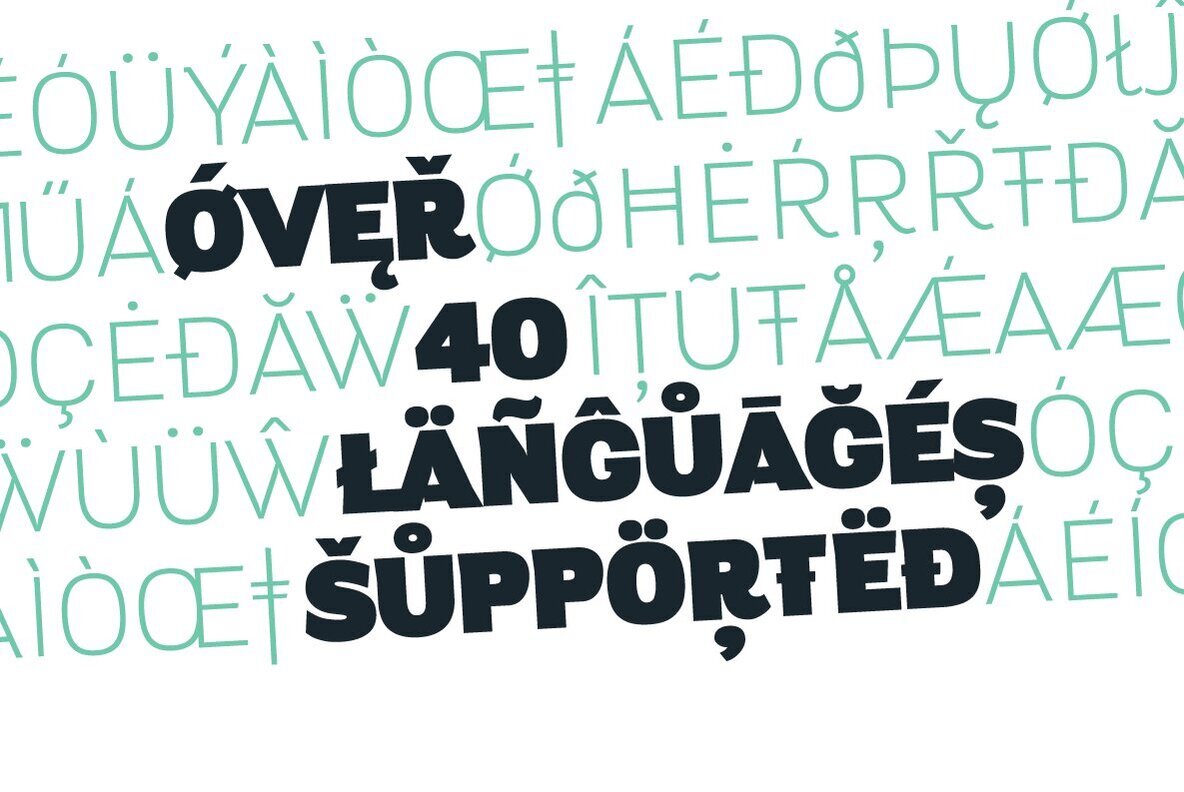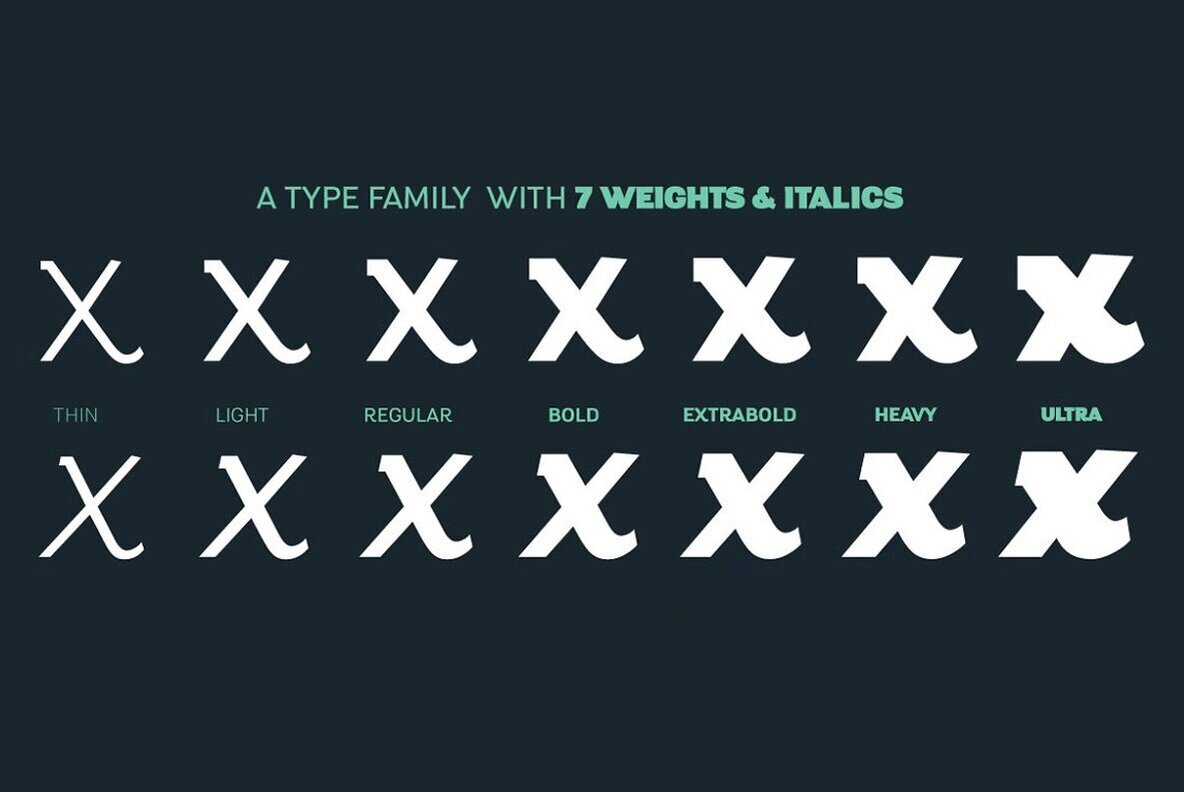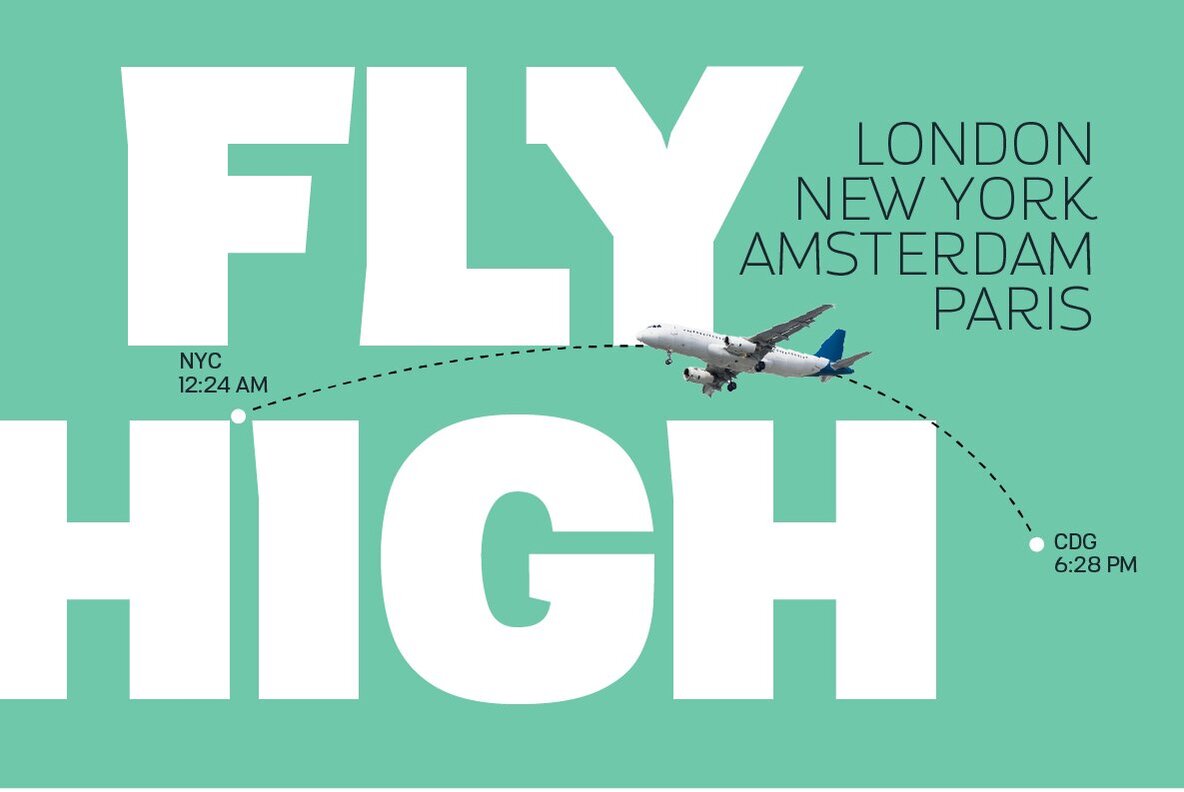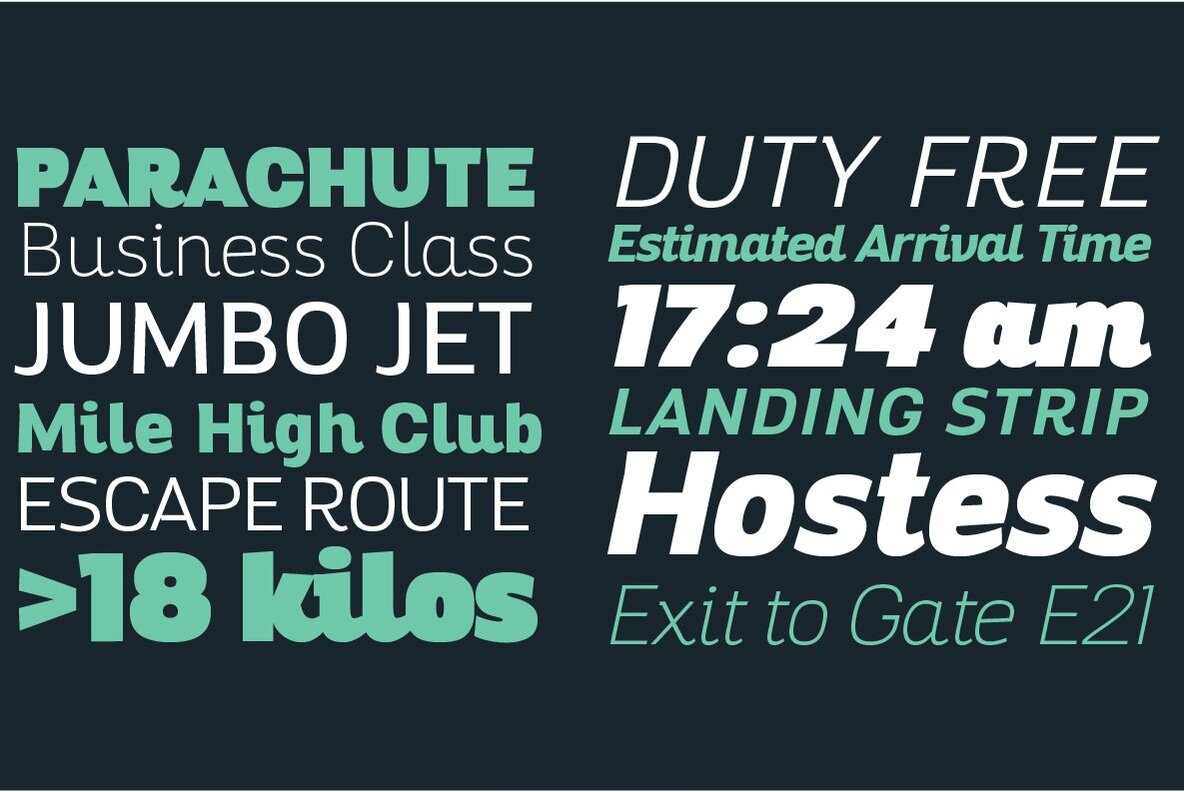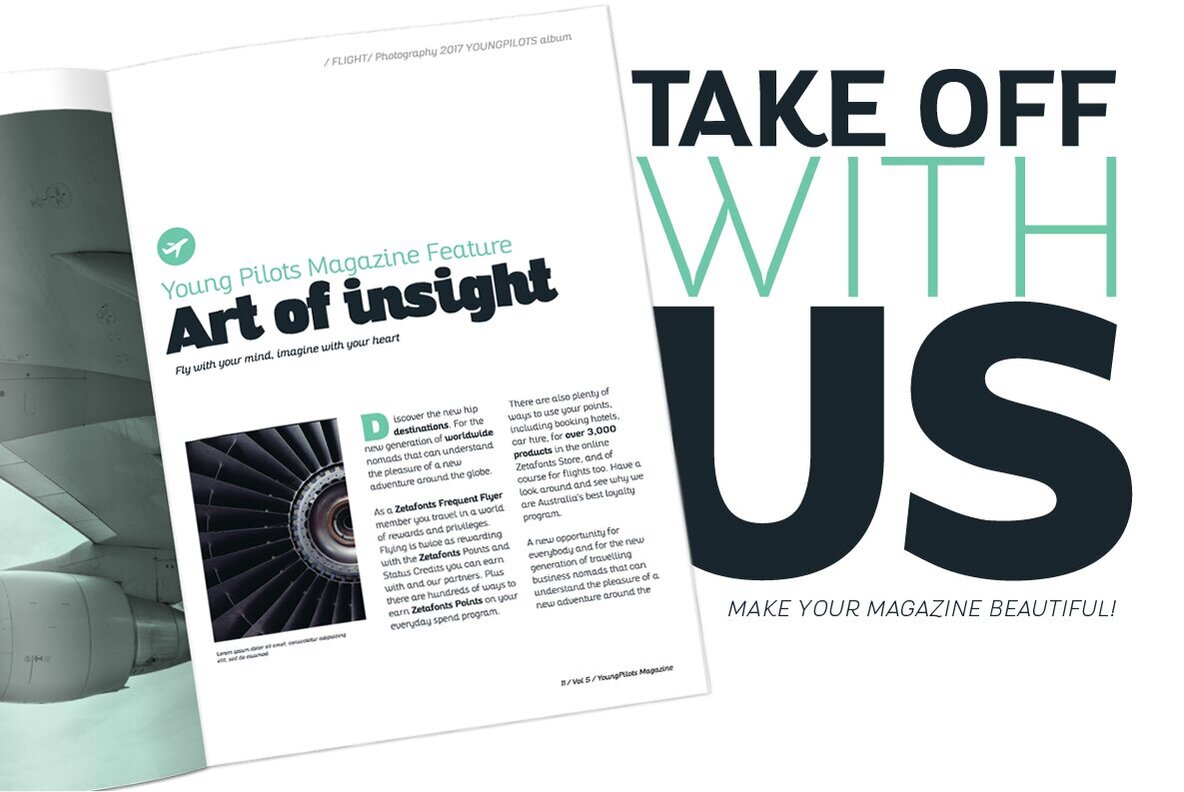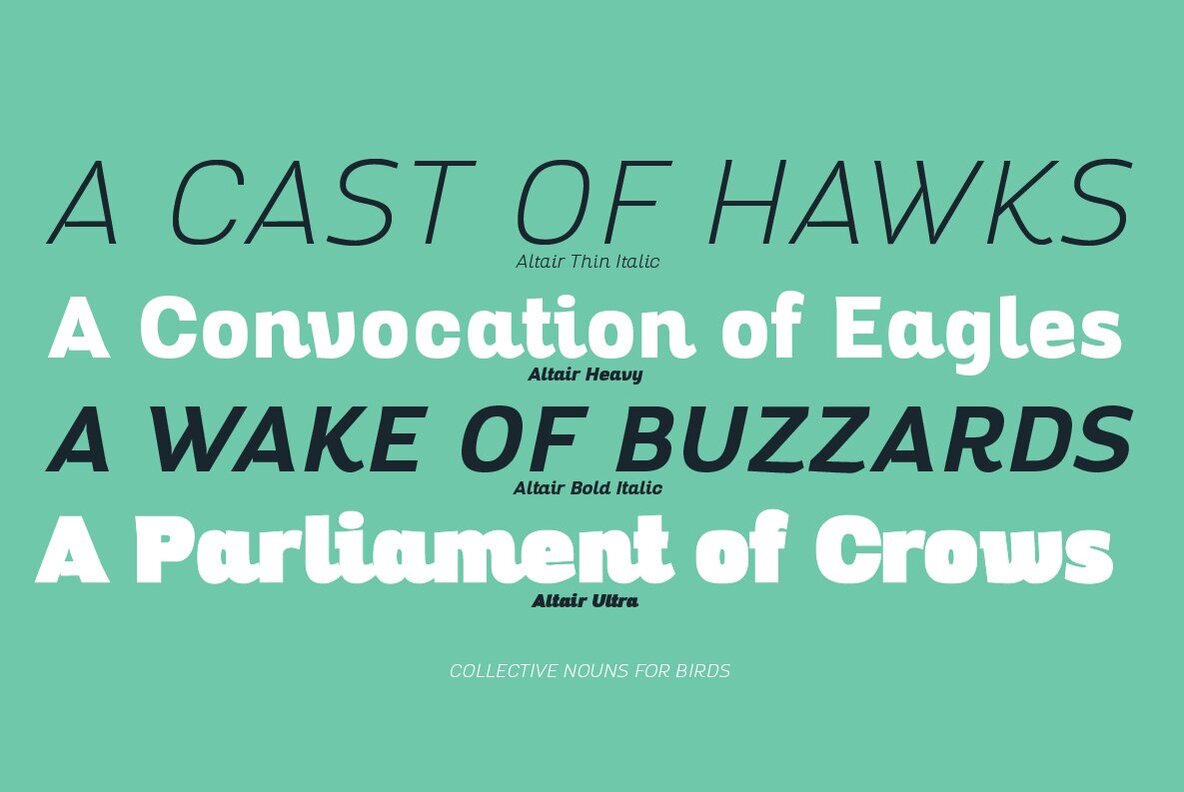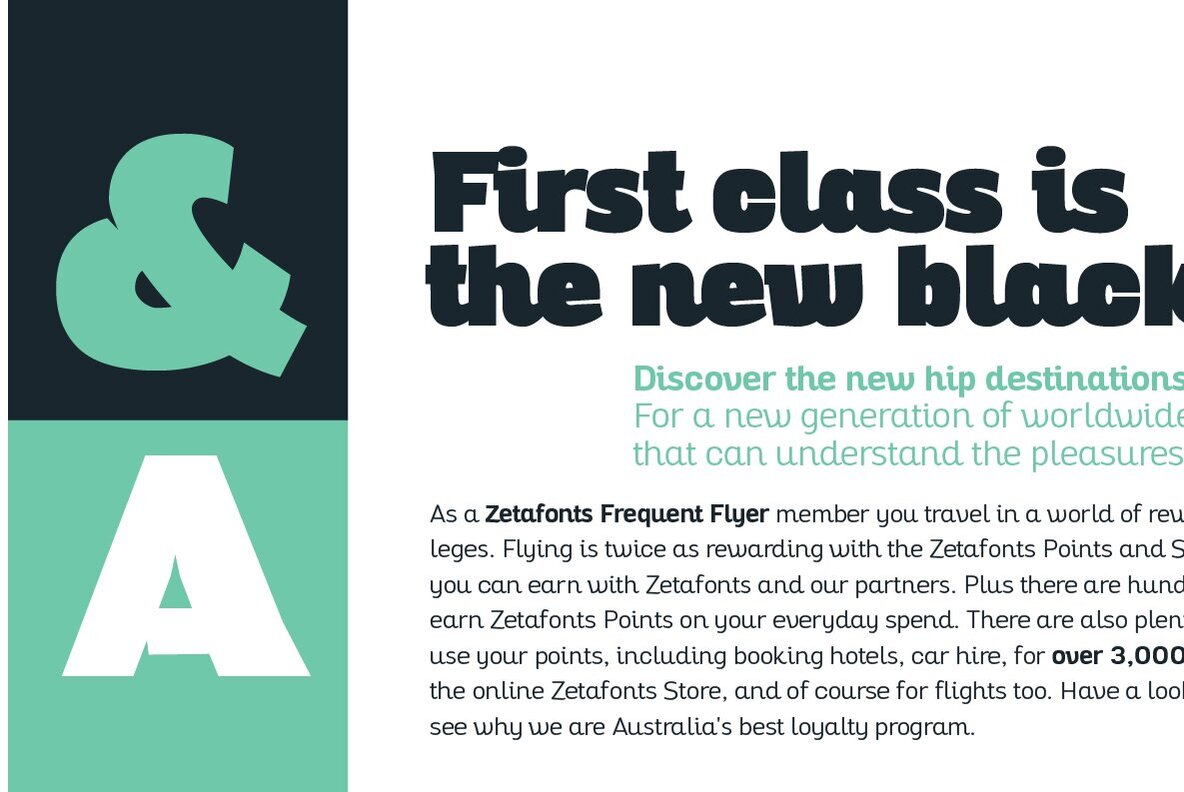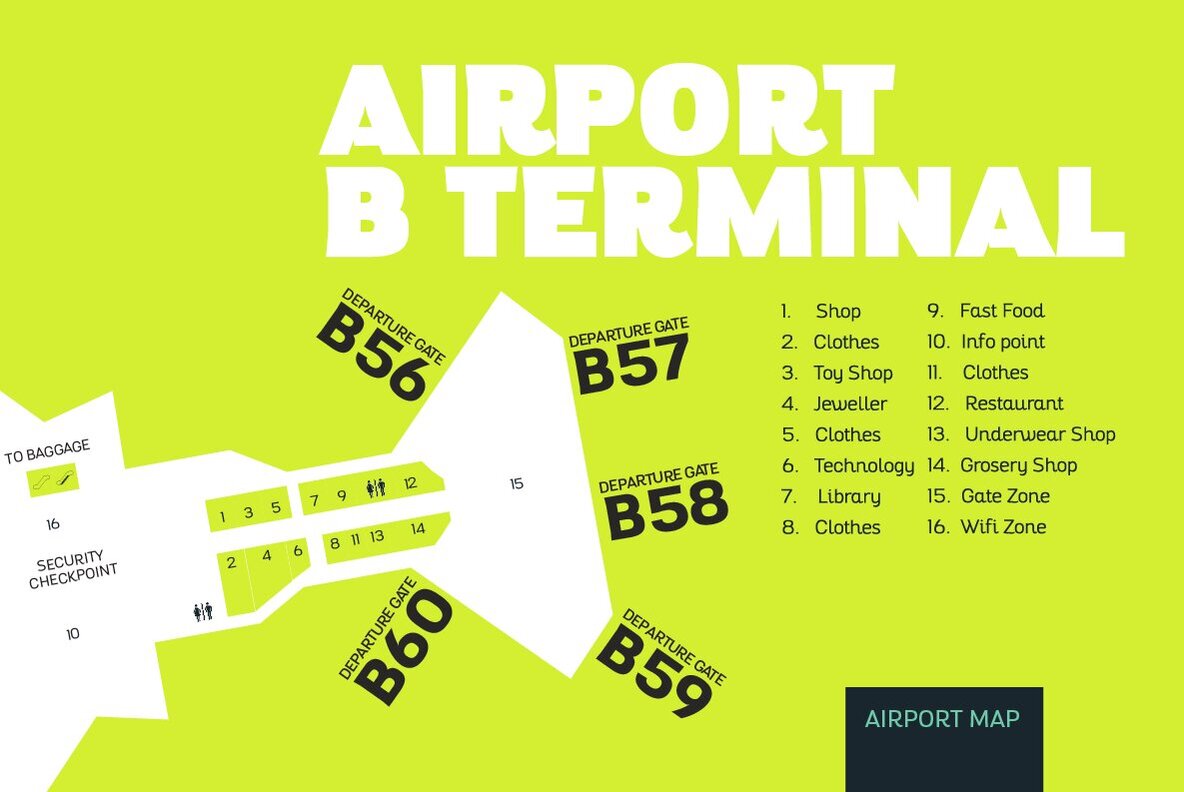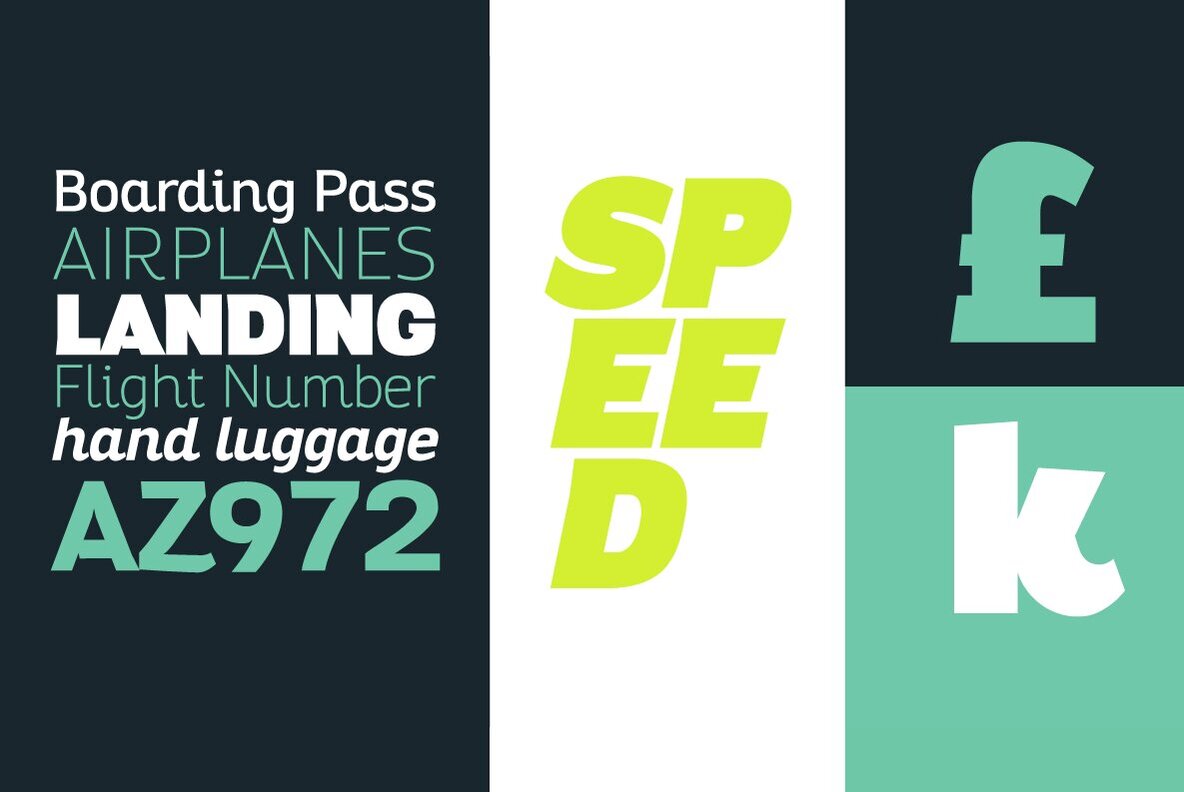
Altair Font
Altair is a sans serif type family derived from Zetafonts's Digitalino typeface. The original bold design by Francesco Canovaro has been expanded in a seven weights family, suitable for a wide range of design uses, from body copy to display text and ranging from a thin weight to the ultra one.
Altair's main originality lies in the calligraphic roots of its design, that gives it a friendly, confident look that is perfect for corporate voices, new technology startups, news blogs and any other case where a solid design must be given an emotional context.